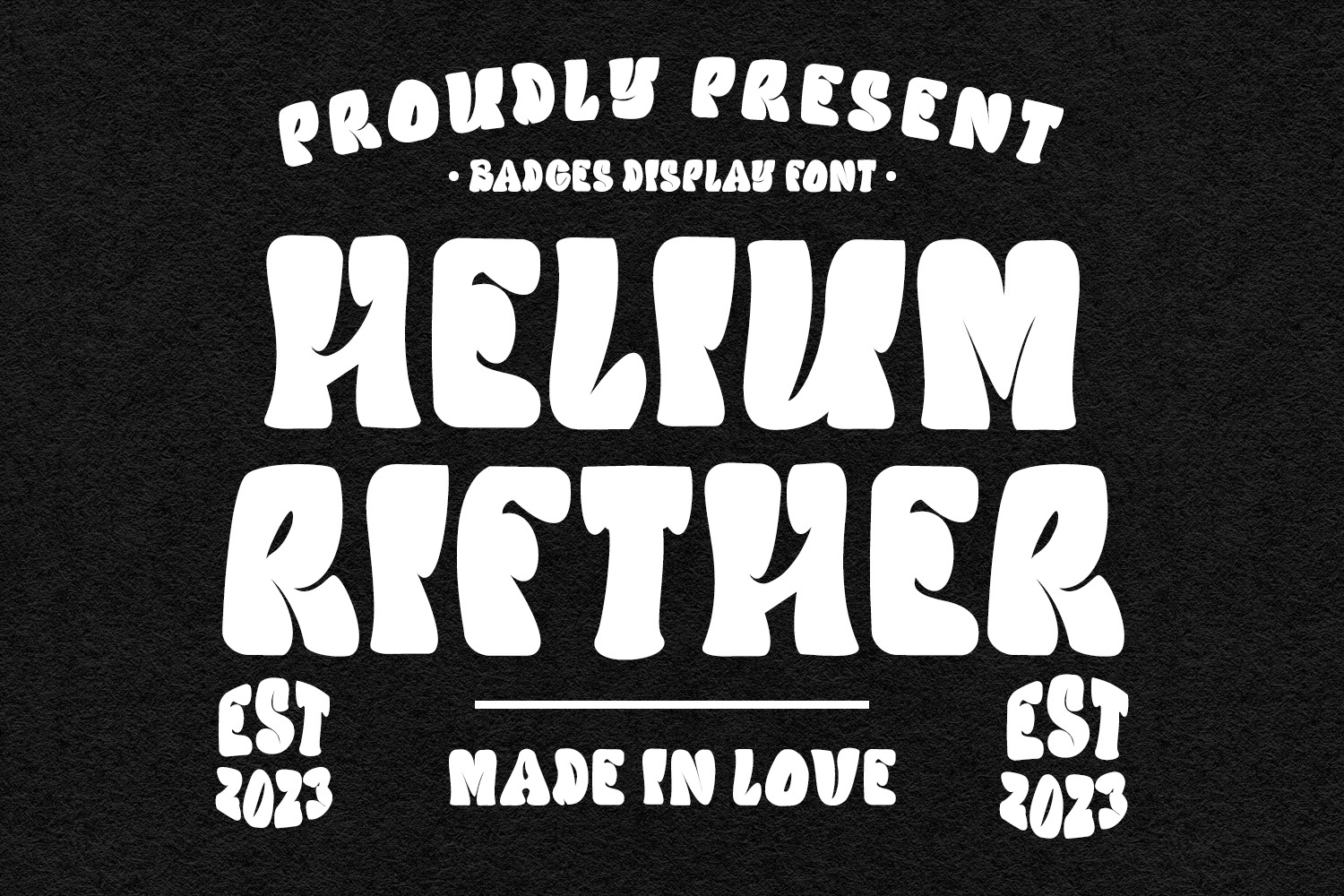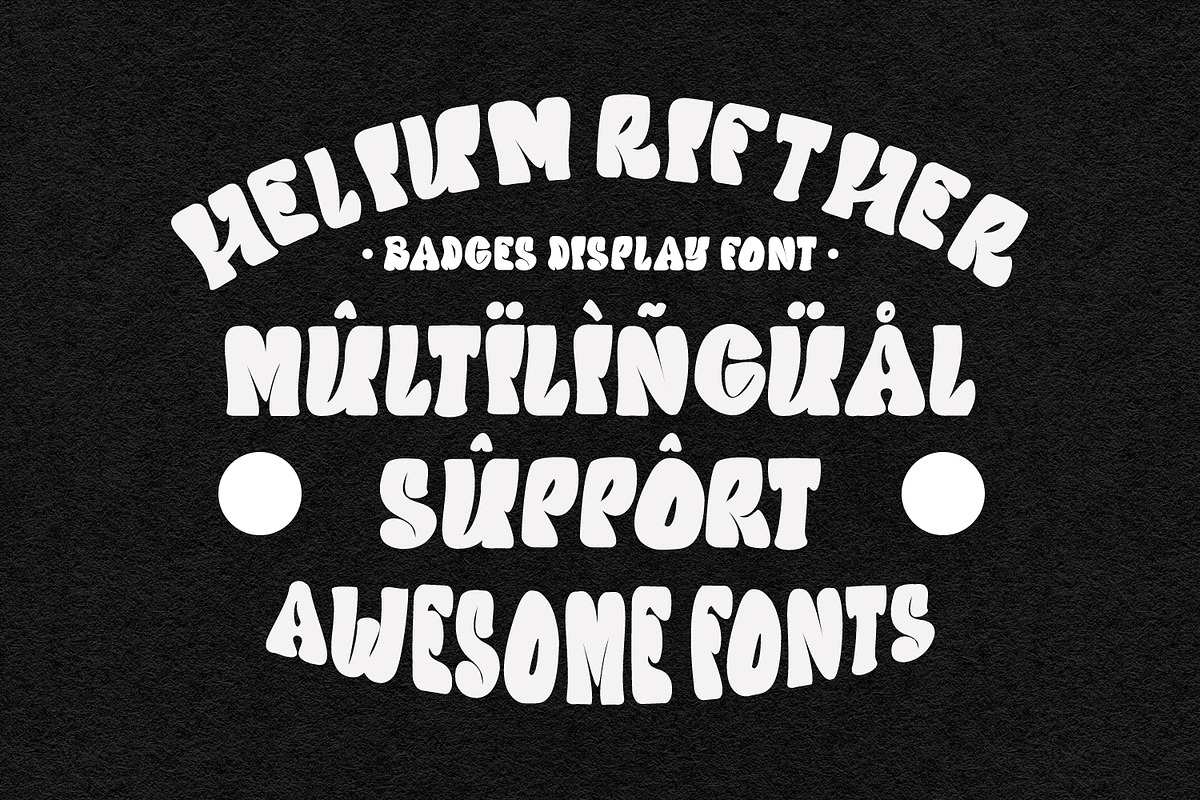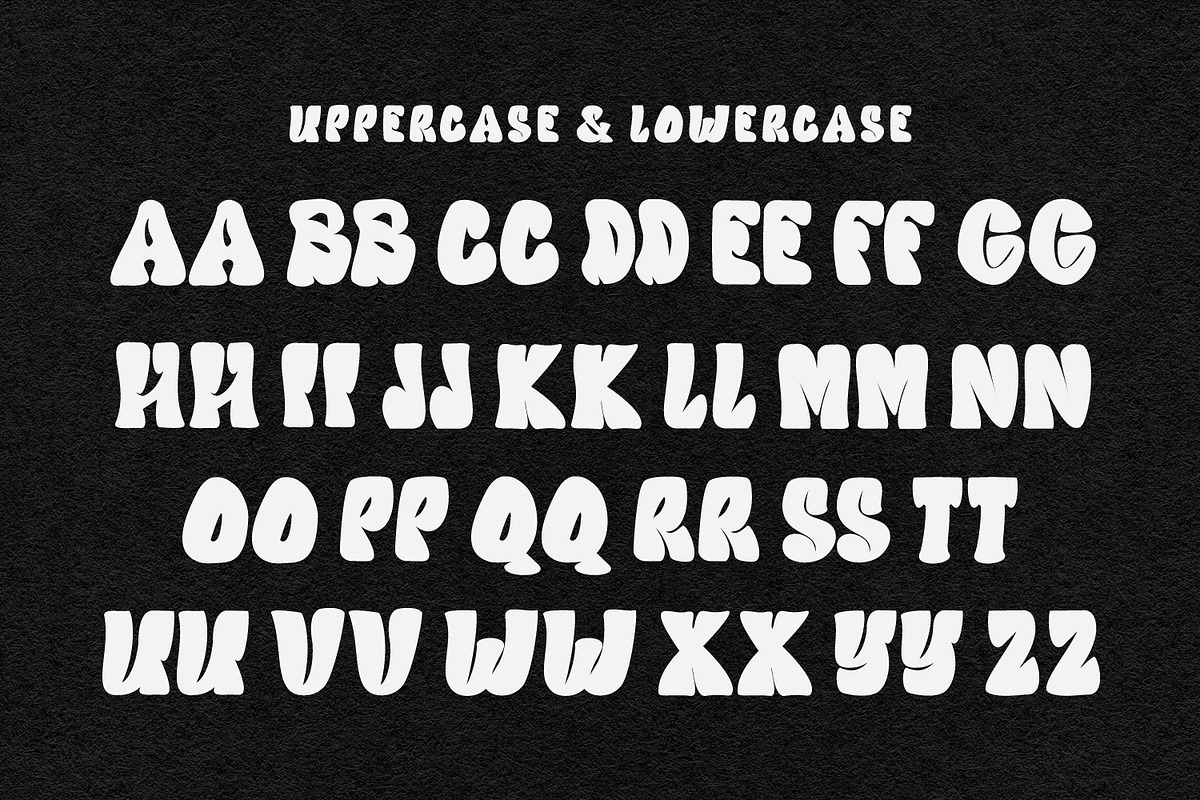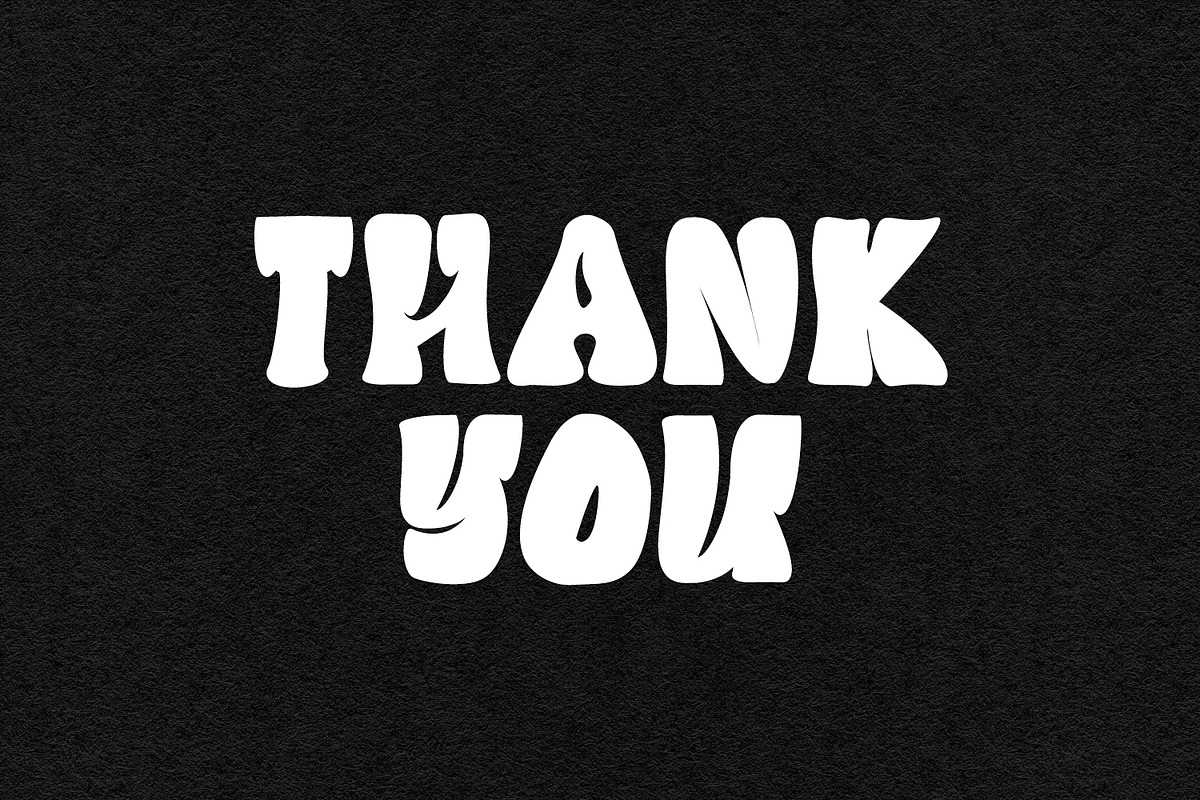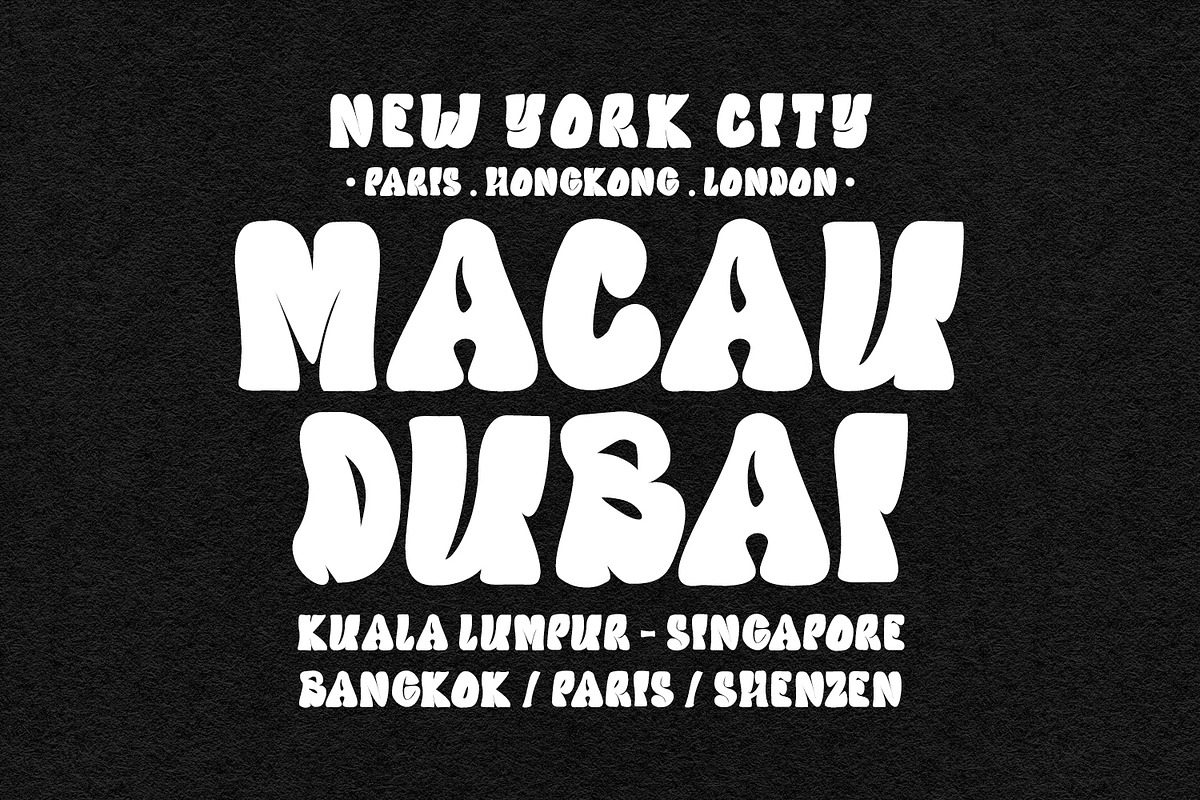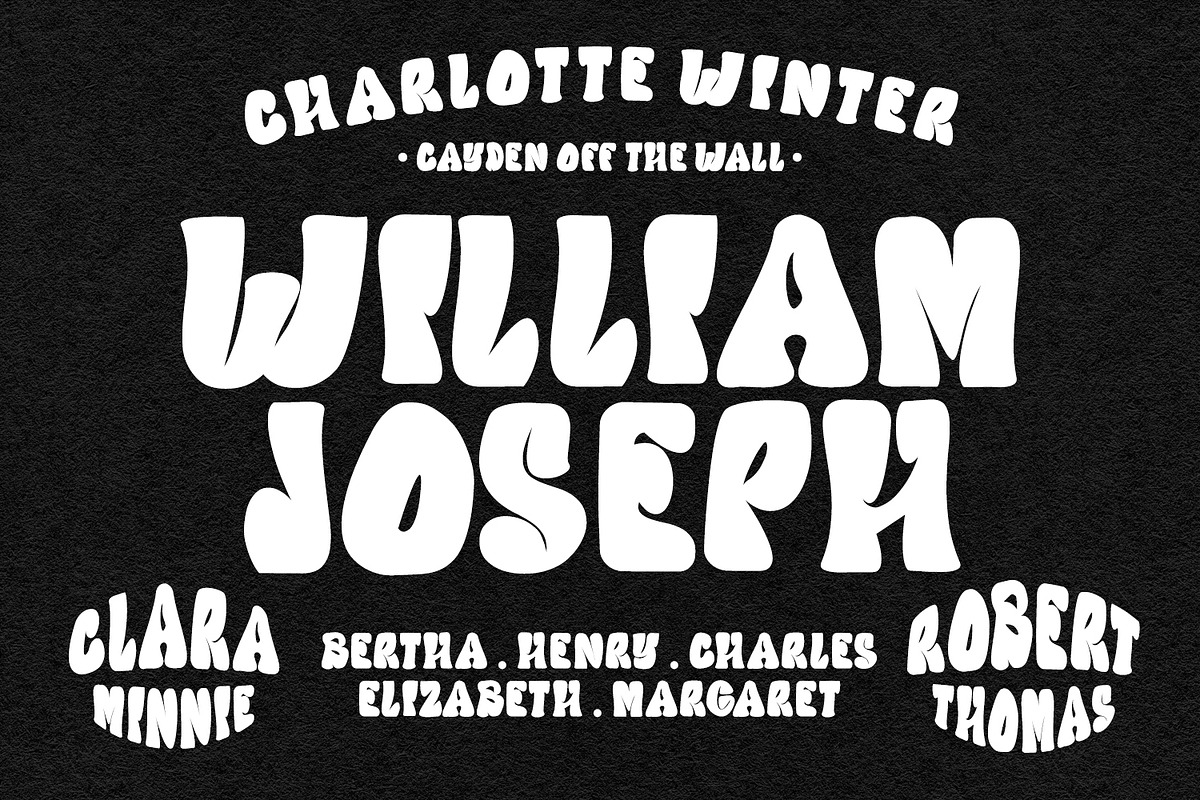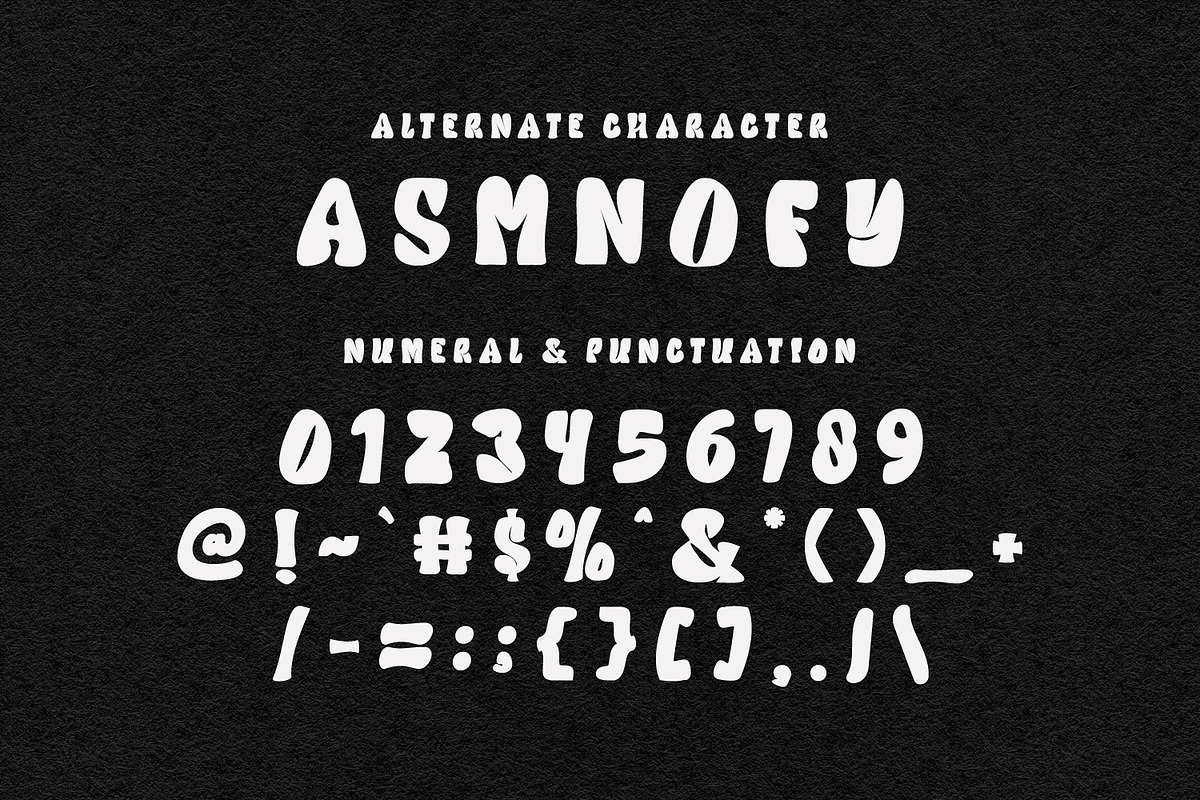
Helium Rifther Badges Display Font
Helium Rifther badges display font, bold stroke, fun character with a bit of ligatures. To give you an extra creative work. Helium Rifther badges display font support multilingual more than 100+ language. This font is good for logo design, Social media, Movie Titles, Books Titles, a short text even a long text letter and good for your secondary text font with script or serif. Make a stunning work with Helium Rifther badges display font.